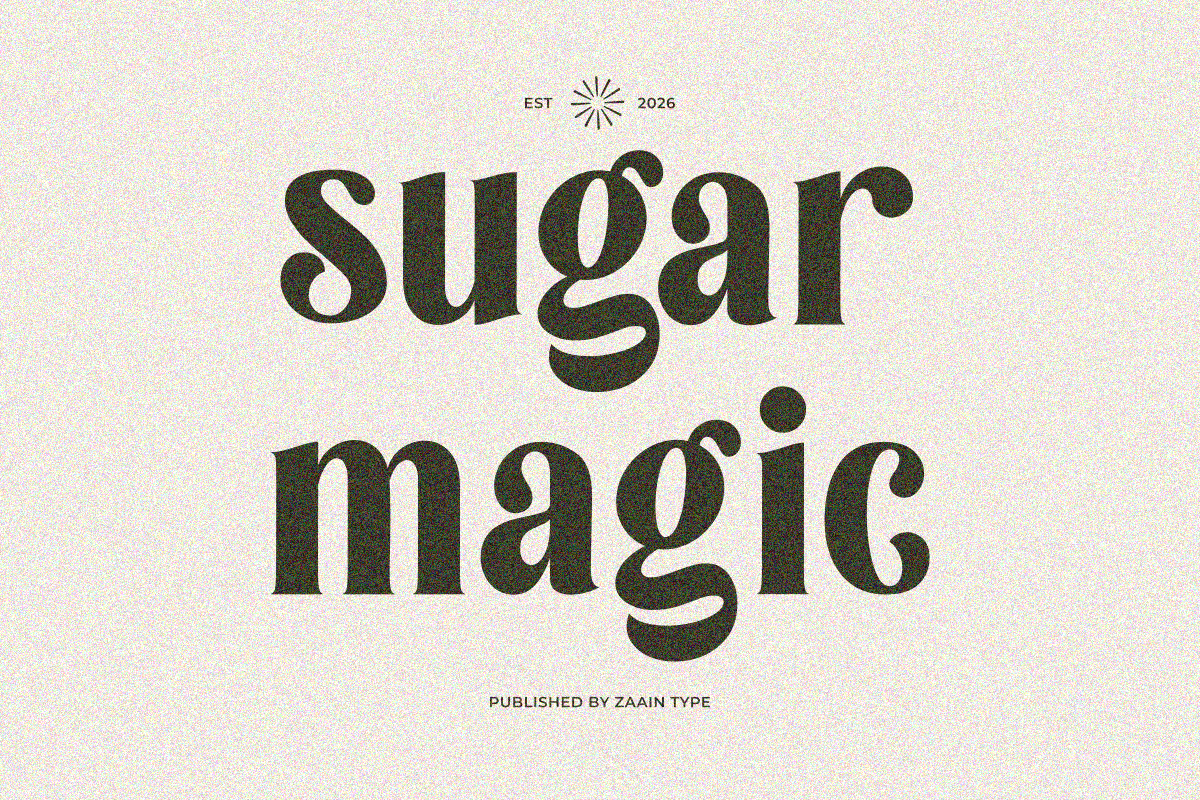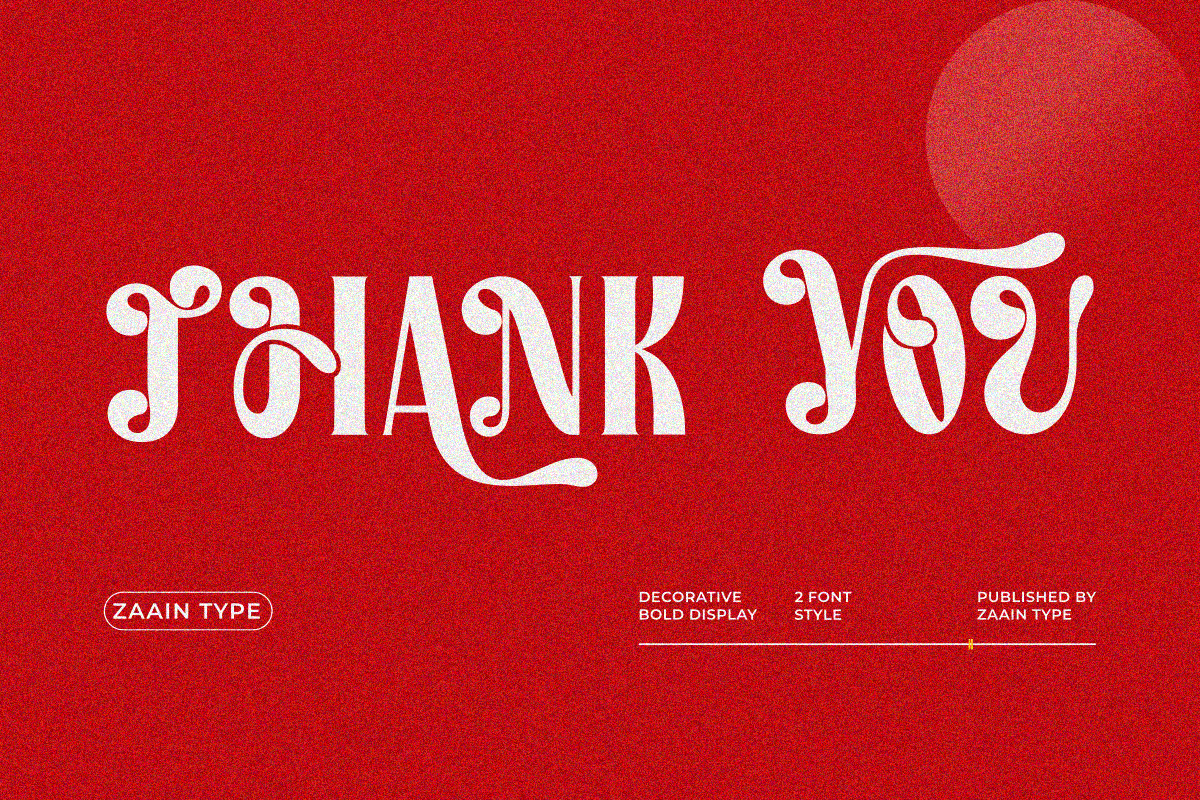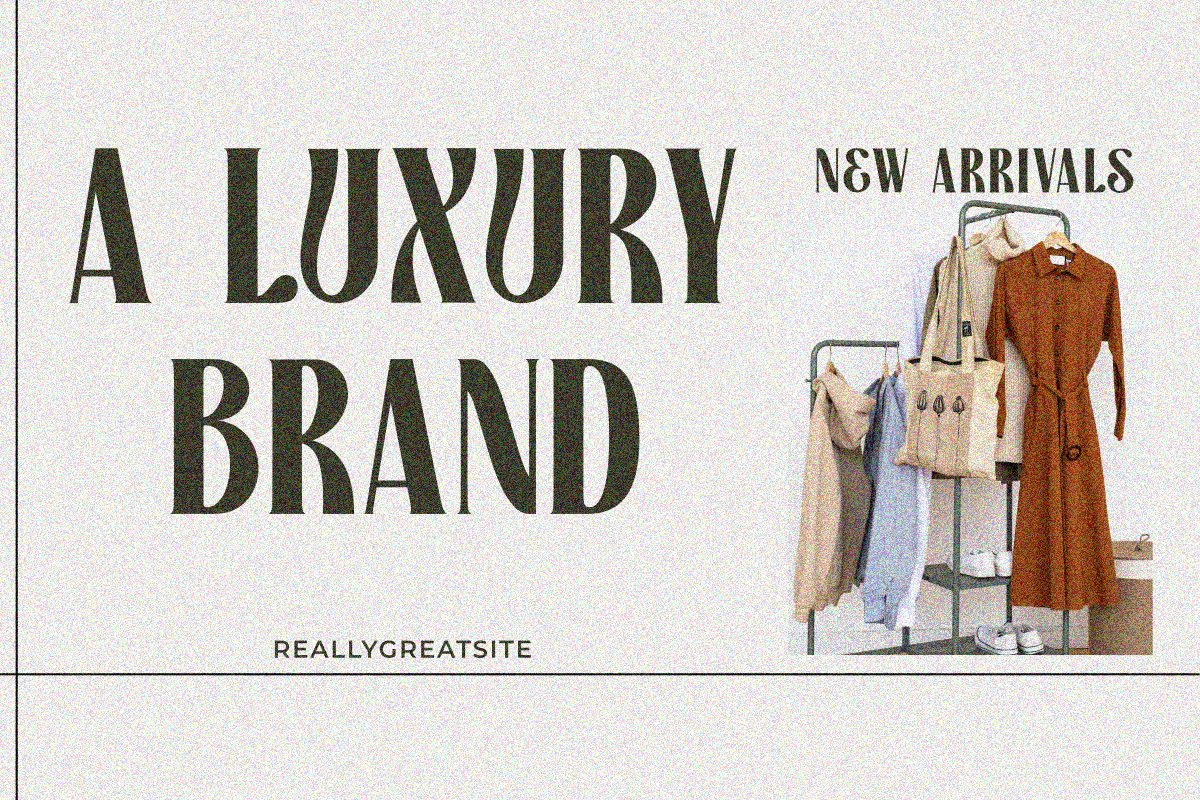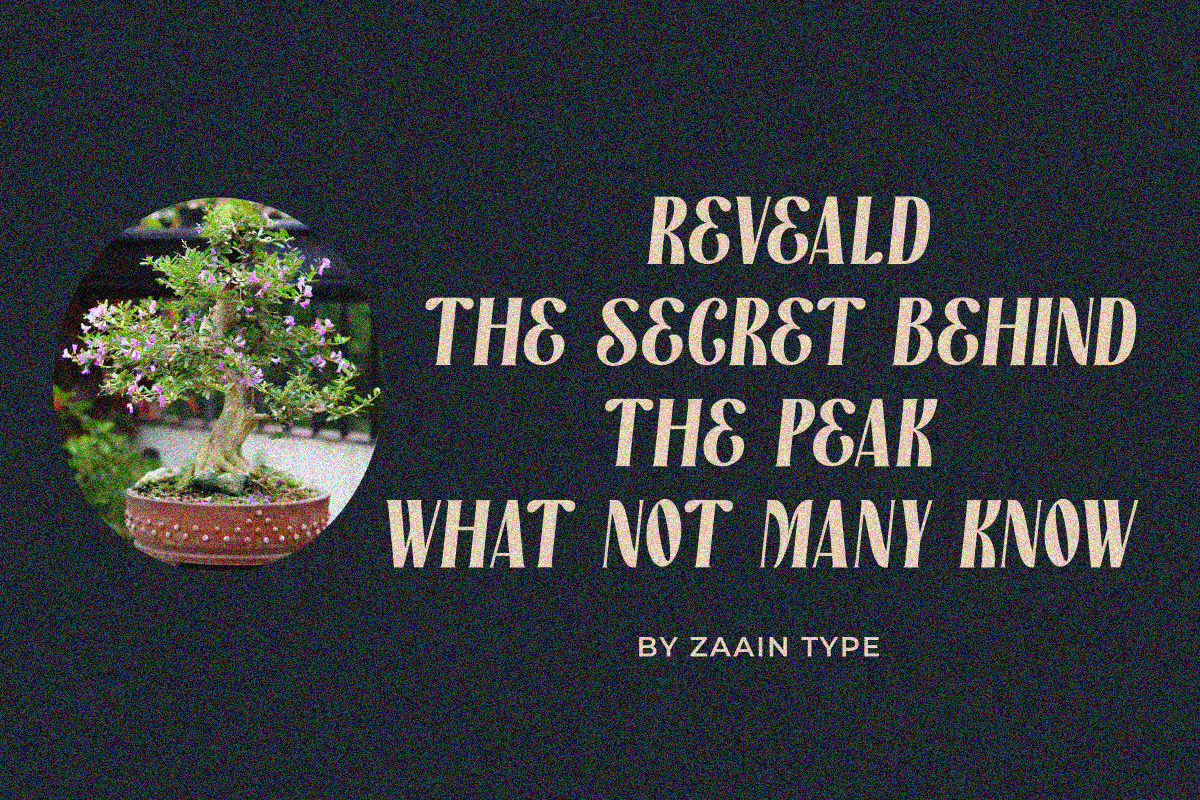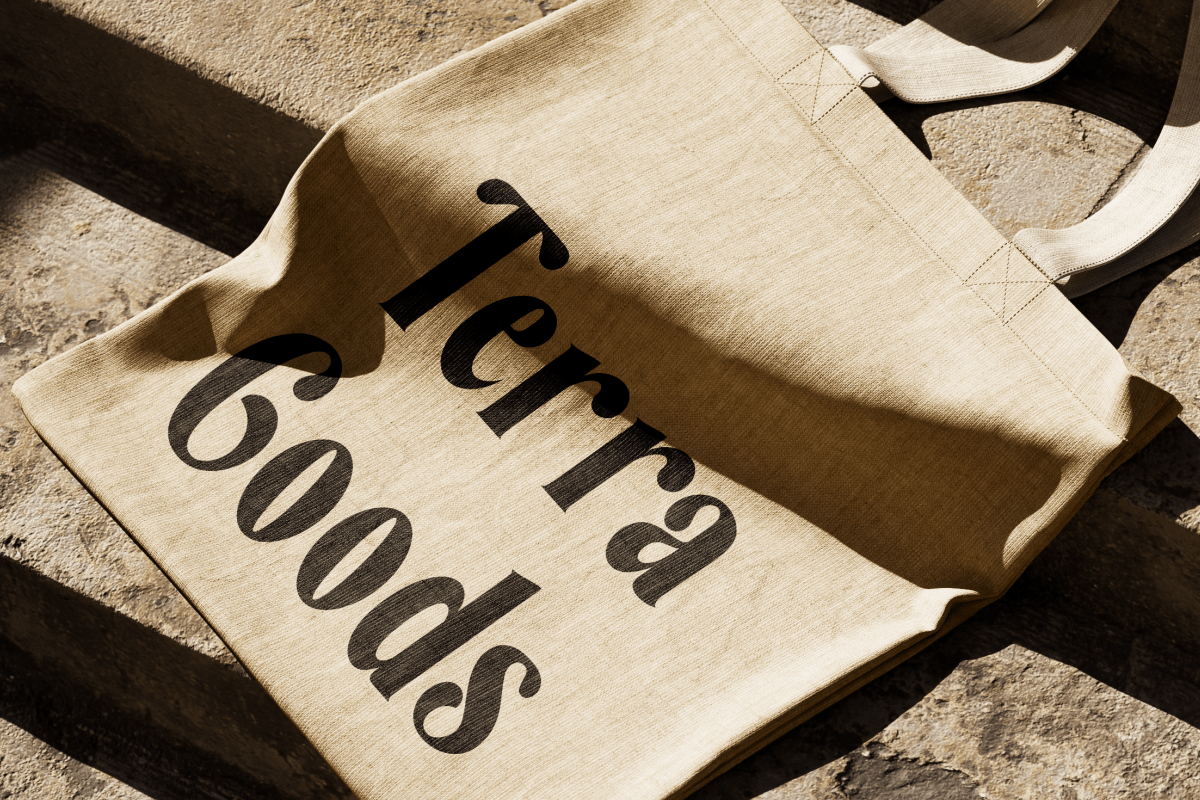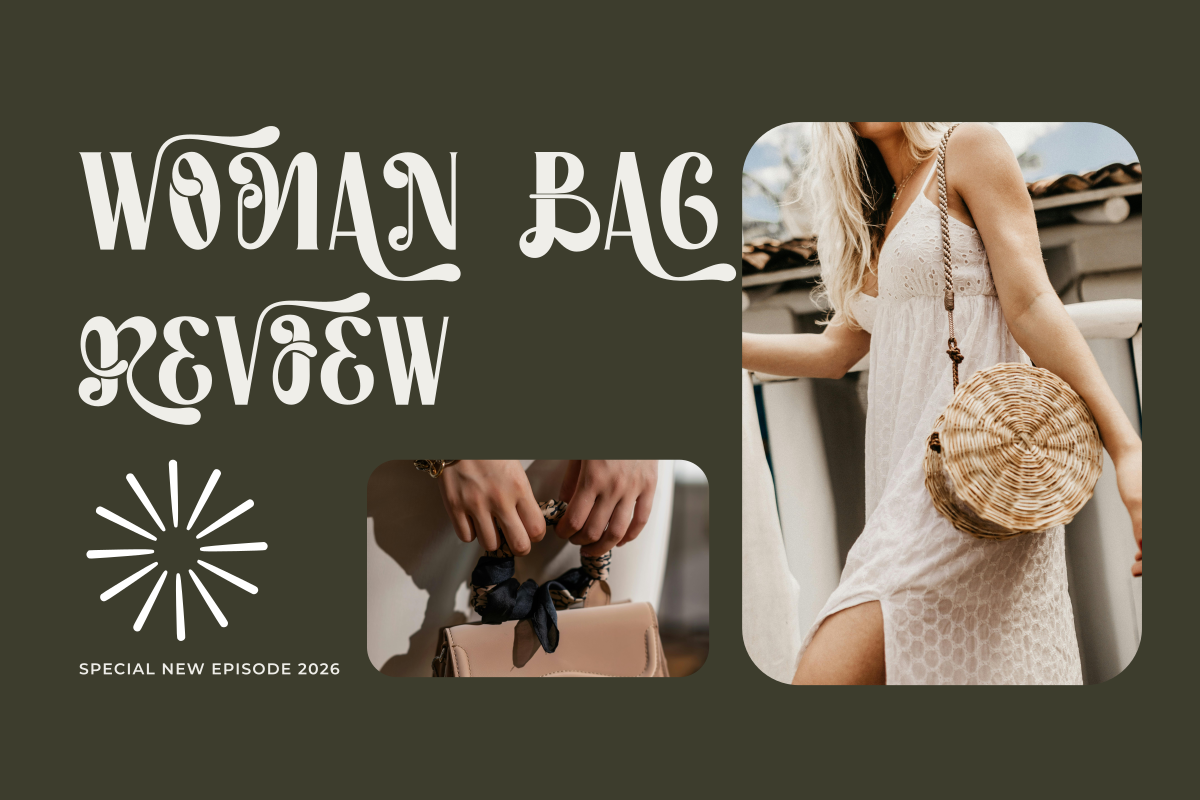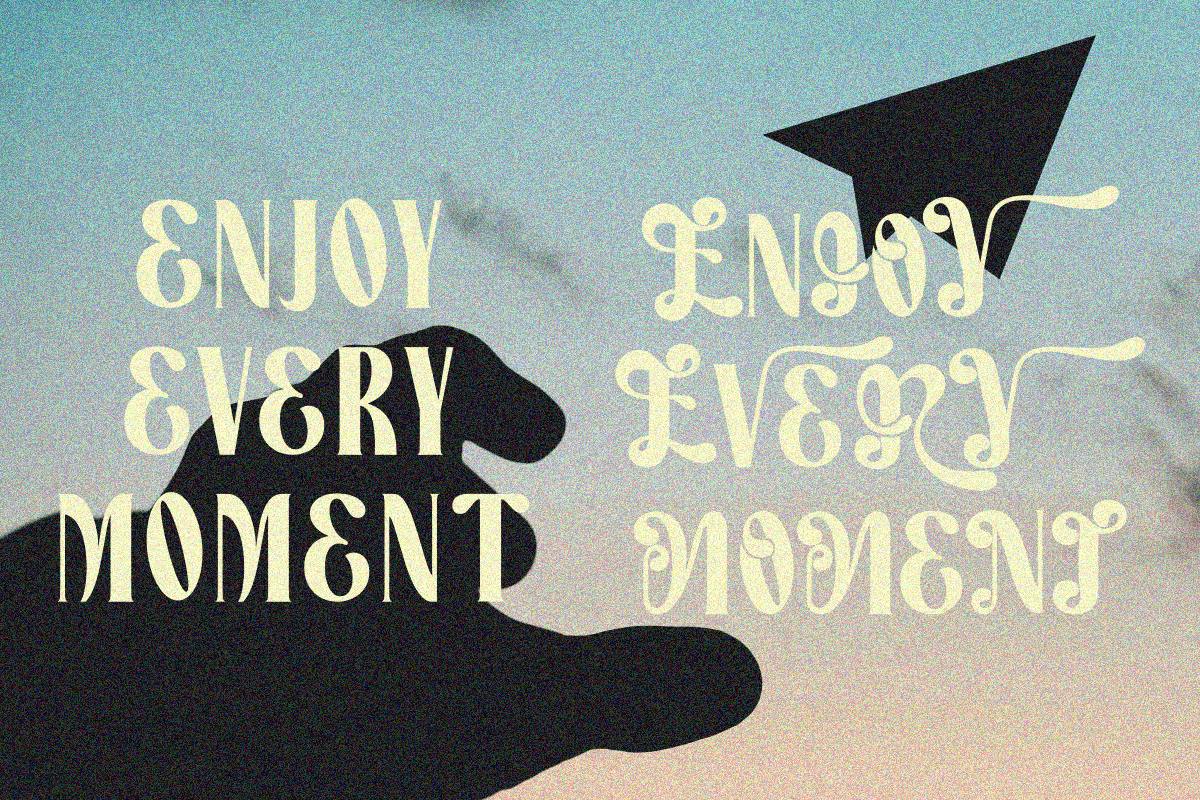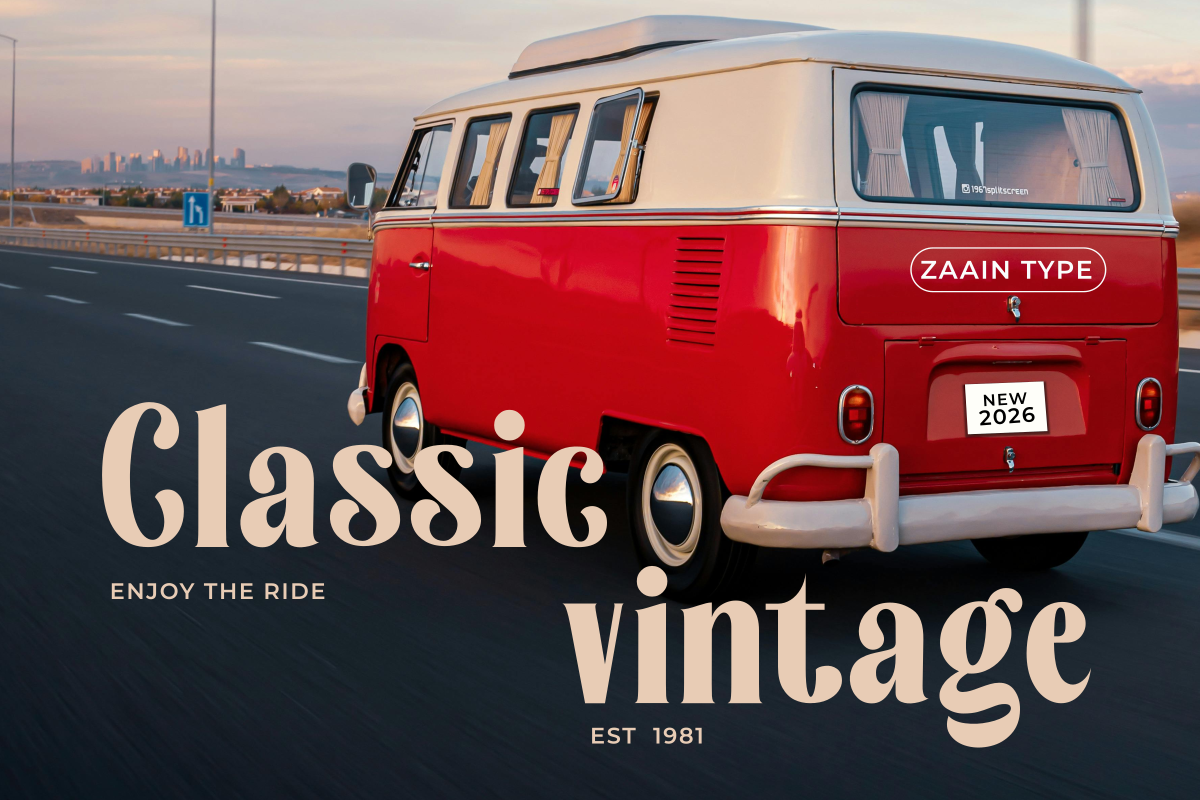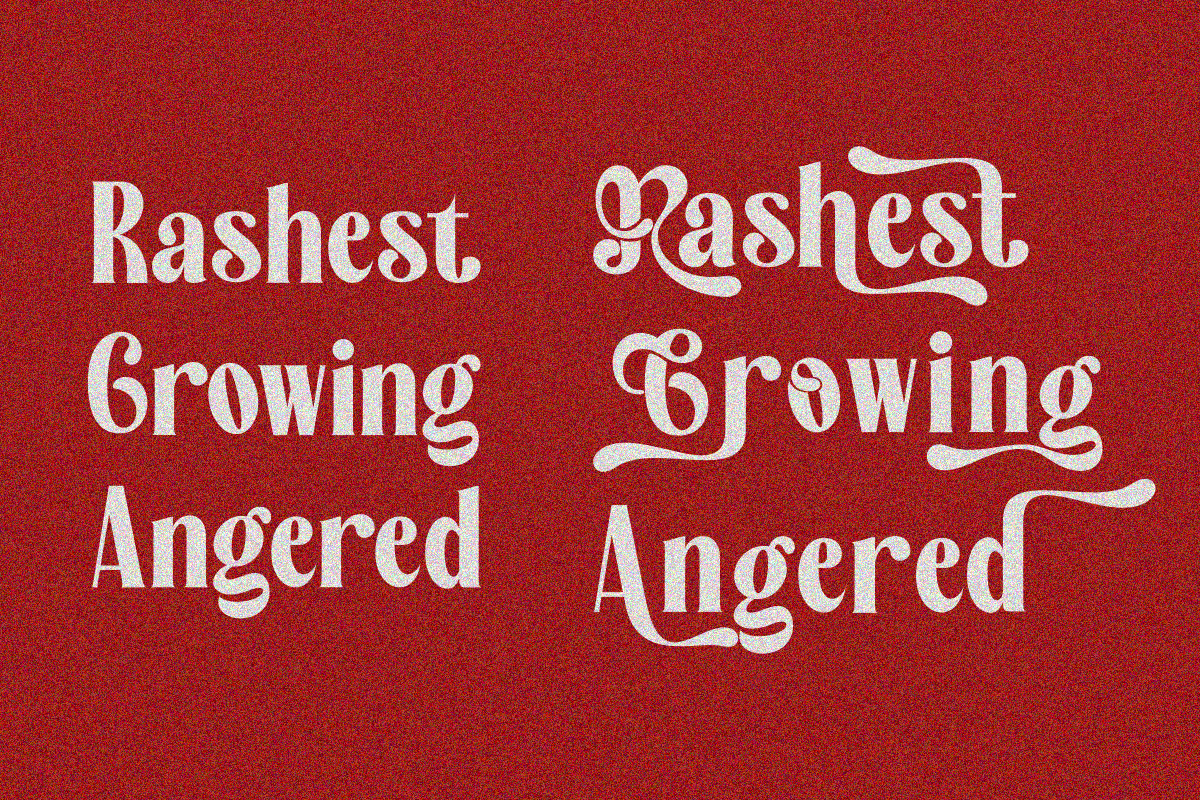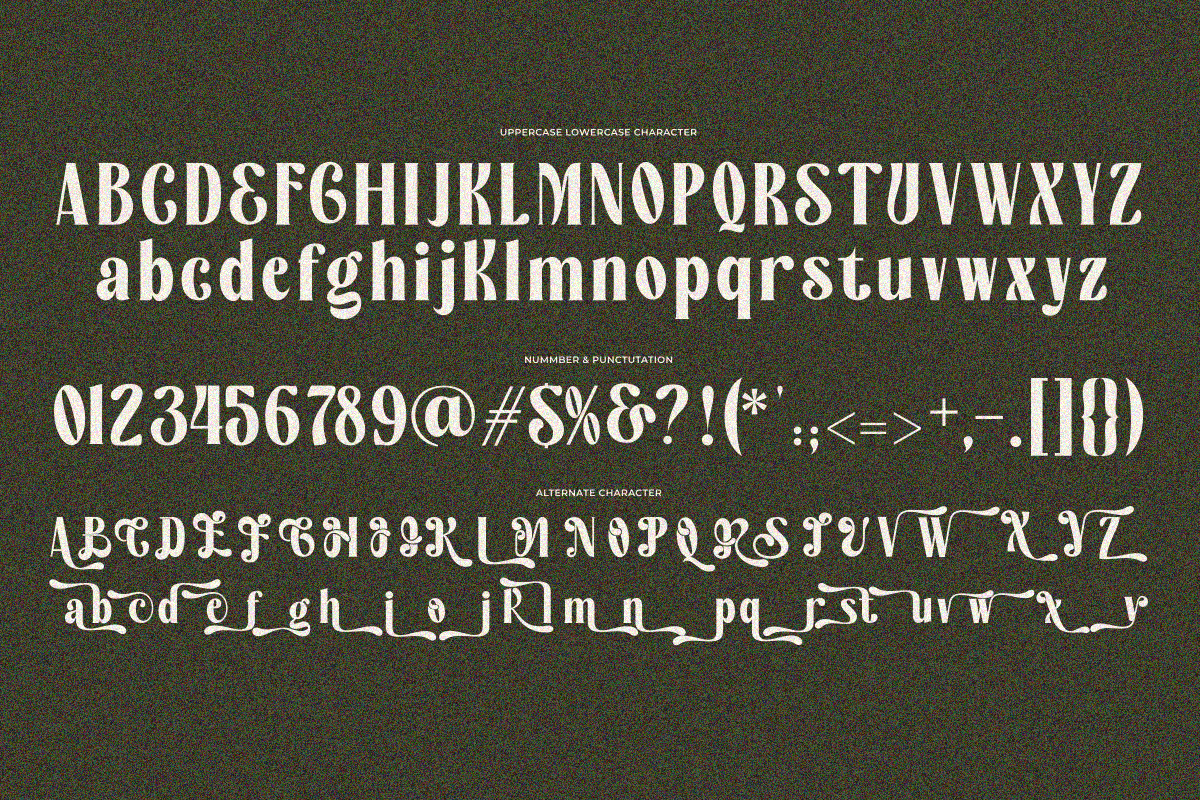
Aveloria
Aveloria is a modern serif typeface that blends classic structure with a touch of contemporary luxury. Each character is crafted with balanced proportions, subtle contrast, and graceful curves that create an elegant presence without compromising readability. Its forms appear bold yet refined, making it perfect for premium branding, editorial layouts, beauty packaging, and any design project that seeks a refined and sophisticated look.
With clean serifs and carefully controlled details, Aveloria delivers a timeless aesthetic—ideal for headlines that need elegance or text that conveys confidence. Aveloria comes with styles that support creative flexibility, making it an excellent choice for designers pursuing high visual quality